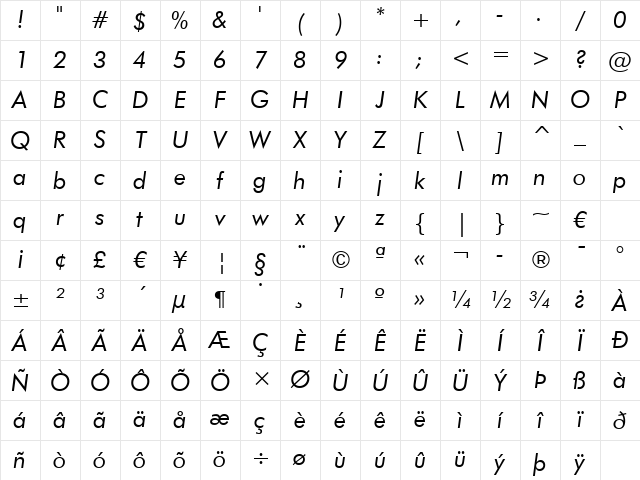
Futura Bk BT Book Italic
Style: Book Italic
Futura Bk BT Family
Complete Futura Bk BT Book Italic glyph index. Displaying only characters natively supported by Futura Bk BT Book Italic font.
Design Context for Futura Bk BT
Futura Bk BT has a distinctly futuristic character, with geometric precision and clean angles that feel at home in technology, gaming, and sci-fi contexts. The slanted form adds forward momentum and visual energy.